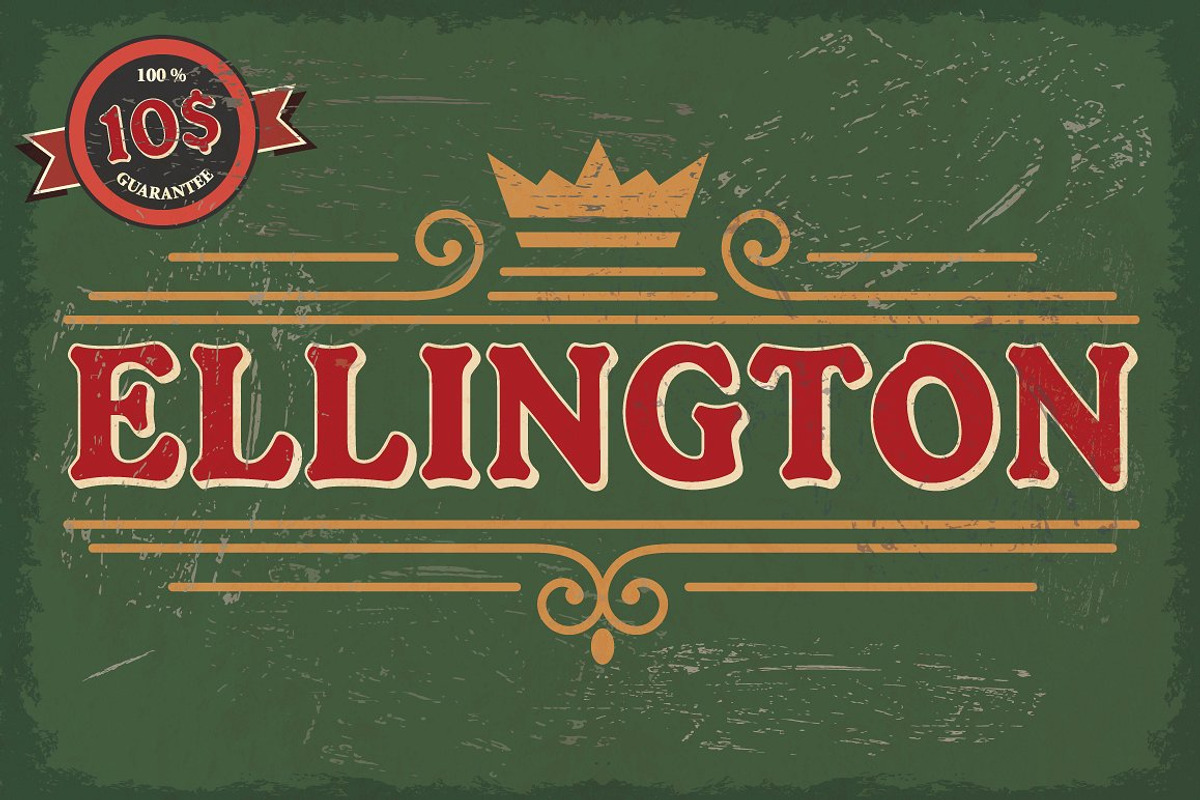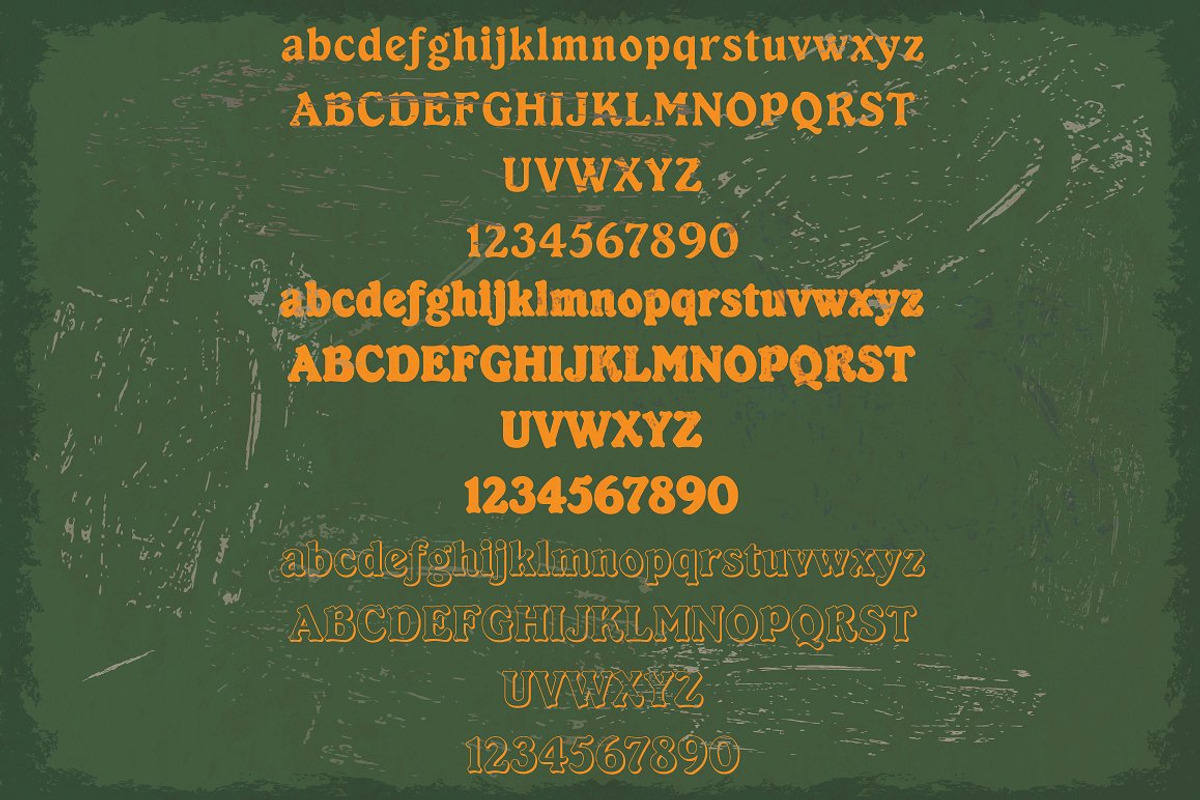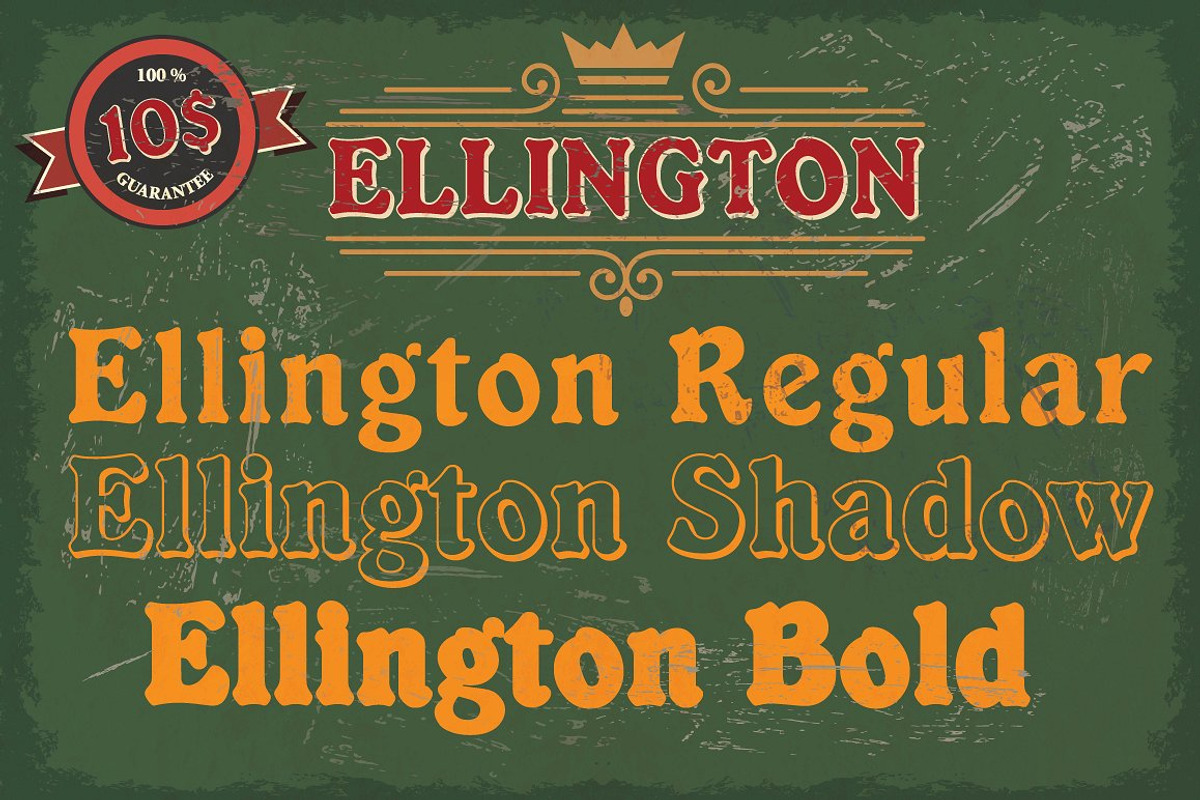
Ellington Font
Ellington is a versatile retro display font designed to give a vintage feel! The various possibilities of the Ellington Font allows you to create a lot of great works such as posters, magazines, printings, t-shirts etc.
- Uppercase & Lowercase
- Numbers & Simbols
- Ellington Bold Regular
- Ellington Regular Regular
- Ellington Shadow Regular
Ellington Font by DCD Vector Co. fits naturally into Branding, posters, packaging, typography.